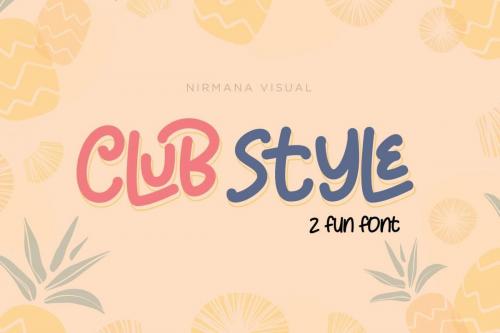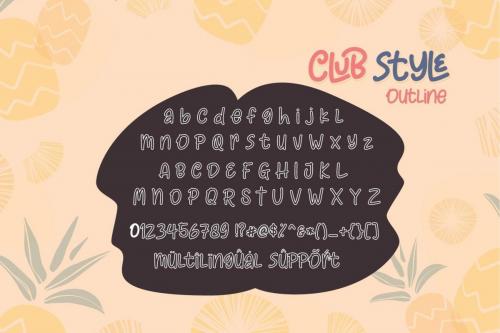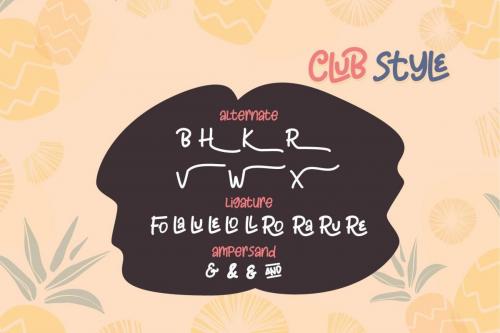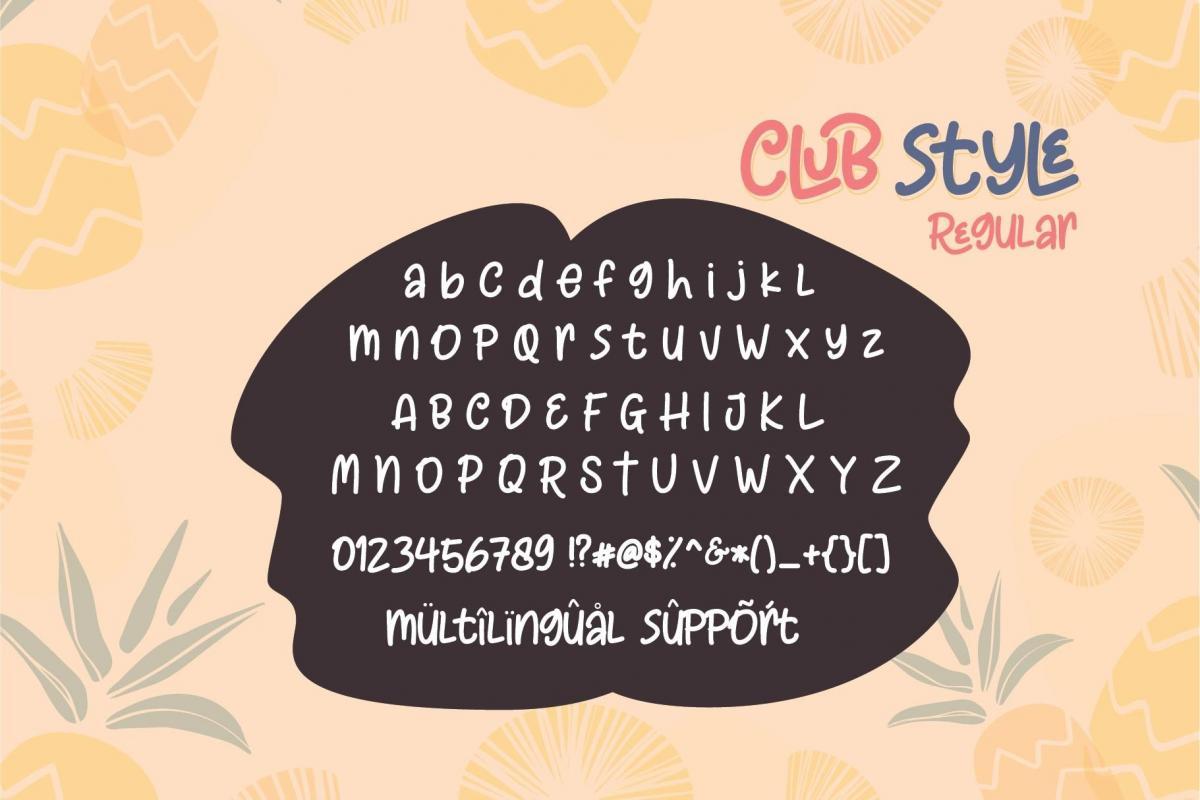
Club Style Font is a fun handwritten font! This is a charming font with a quirky, hand-drawn style. It is perfect for logos, children’s books, package design, typographic posters, etc
- Designer: Sigit Dwipa